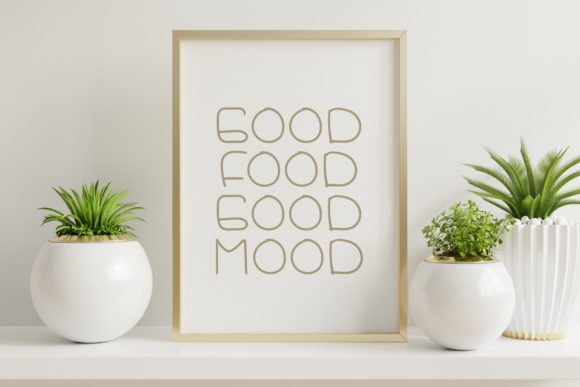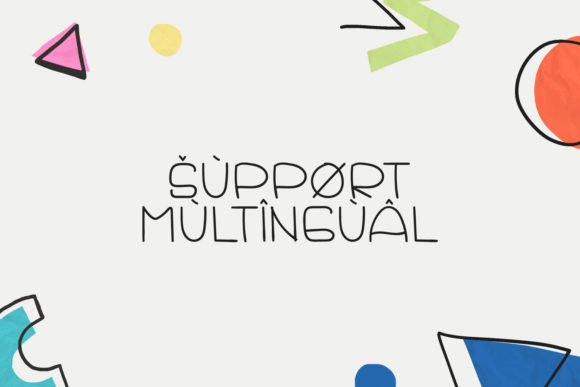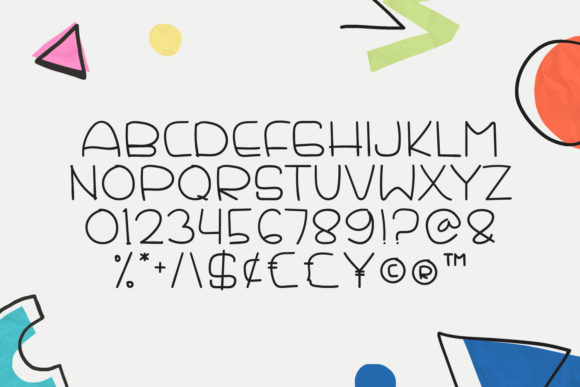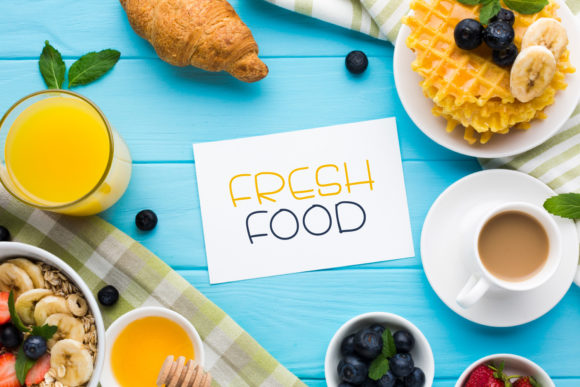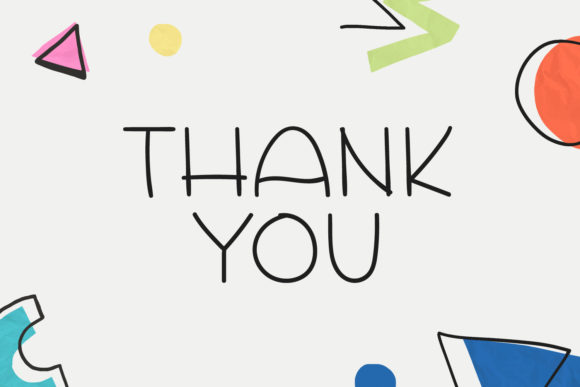
Introducing Children Memories Font: A Cute and Simple Lettered Handwritten Font
Are you a designer, crafter, or educator looking for a font that can add a personal touch to your designs? Look no further than Children Memories Font, a charming and straightforward lettered handwritten font. This delightful font is perfect for creating chalkboard quotes, teaching materials, and other designs that require a warm and authentic feel.
What Makes Children Memories Font So Special?
Children Memories Font is a beautifully crafted font that boasts a unique, hand-written style that is reminiscent of chalkboard writing. Its authentic look and feel make it an excellent choice for designers and educators who want to create materials that are both visually appealing and engaging. Whether you’re creating a chalkboard quote, a teaching worksheet, or a fun craft project, this font is sure to add a personal and realistic touch to your designs.
Key Features of Children Memories Font
- Cute and Simple Design: Children Memories Font features a cute and simple design that is perfect for creating a variety of designs, from chalkboard quotes to teaching materials.
- Handwritten Style: This font boasts a beautiful, handwritten style that adds a personal touch to any design.
- Authentic Look: The font’s authentic look and feel make it perfect for creating designs that require a realistic, chalkboard-like appearance.
- Easy to Read: Children Memories Font is easy to read, making it an excellent choice for teaching materials and other designs where legibility is important.
Uses for Children Memories Font
Children Memories Font is a versatile font that can be used for a wide range of design projects, including:
- Chalkboard Quotes: Create eye-catching chalkboard quotes for your home, classroom, or office.
- Teaching Materials: Use Children Memories Font to create engaging and interactive teaching materials, such as worksheets, posters, and activity sheets.
- Craft Projects: Add a personal touch to your craft projects, such as handmade cards, gift tags, and scrapbook pages.
- Signs and Displays: Create eye-catching signs and displays for your home, classroom, or business.
Why Choose Children Memories Font?
There are many reasons why designers, crafters, and educators choose Children Memories Font for their design projects. Here are just a few:
- Unique and Authentic Style: Children Memories Font features a unique and authentic style that sets it apart from other fonts.
- Versatile: Children Memories Font can be used for a wide range of design projects, from chalkboard quotes to teaching materials.
Children Memories Font is a delightful and versatile font that is perfect for designers, crafters, and educators who want to add a personal touch to their designs. With its cute and simple design, handwritten style, and authentic look, this font is sure to become a favorite in your design arsenal. Whether you’re creating chalkboard quotes, teaching materials, or craft projects, Children Memories Font is an excellent choice.